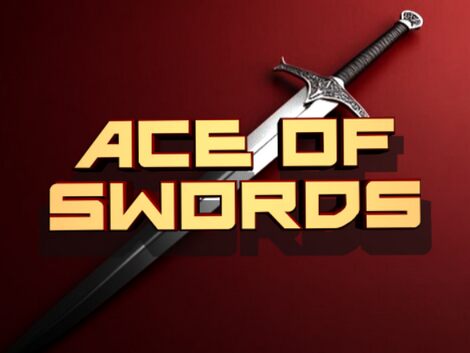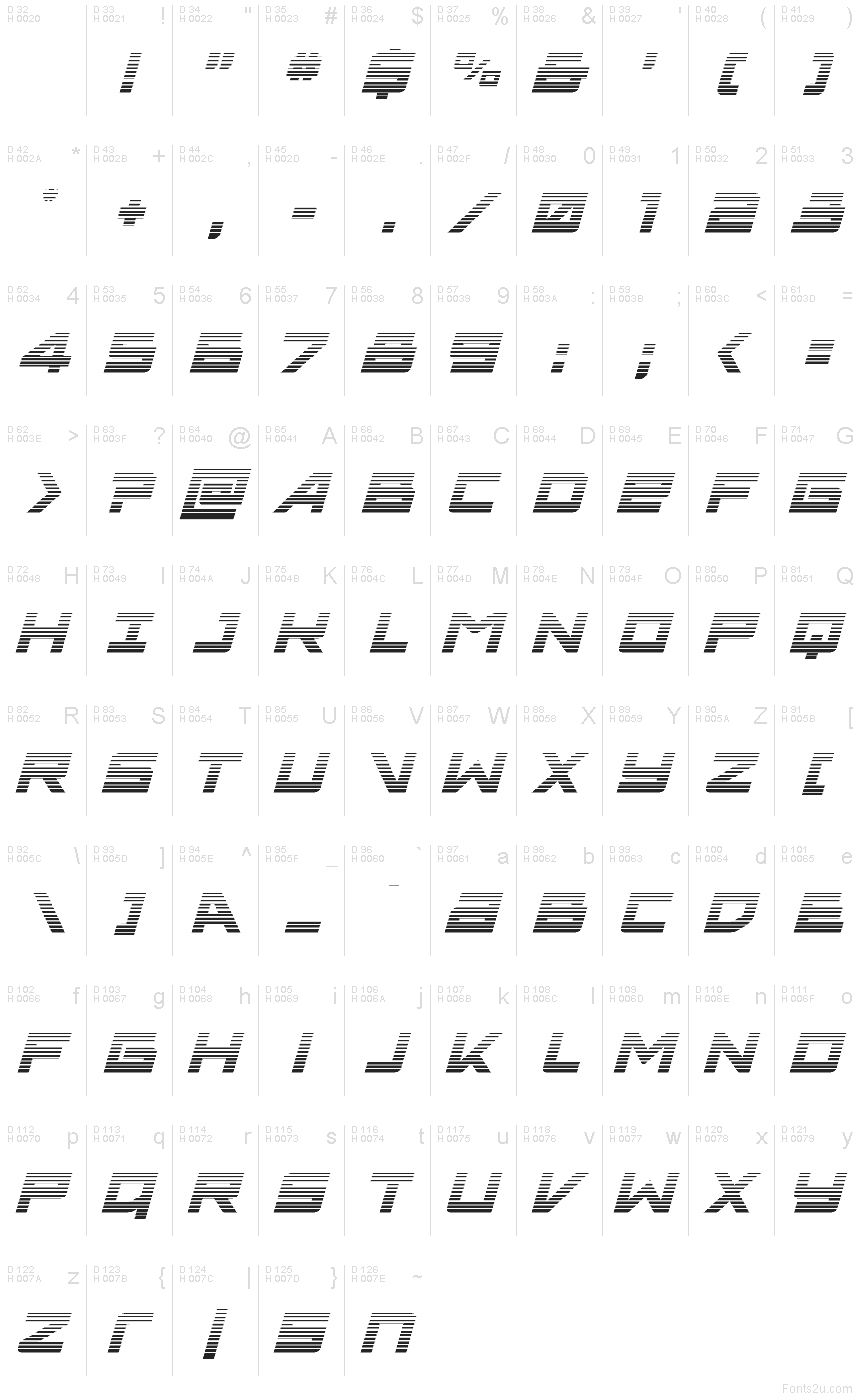
Ace of Swords Gradient Italic
Ace of Swords Gradient Italic font by Iconian Fonts is a free techno display typeface that looks like it’s been sliced by light-speed motion. Long, slanted letterforms race forward, while the tight horizontal striping creates a metallic gradient that feels both digital and mechanical. Set large, the stacked lines merge into a smooth, glossy band of tone, giving logos and headlines a fast, electric sheen that grabs attention instantly.
Using Ace of Swords Gradient Italic, you can push energy and motion in sci-fi titles, racing posters, esports branding, YouTube intros, event flyers, and futuristic product packaging. This free font thrives on big, wide layouts where its gradient stripes can really stretch out. Pair it with a simple, neutral sans serif for body copy, and let Ace of Swords handle all the high-octane hero text.